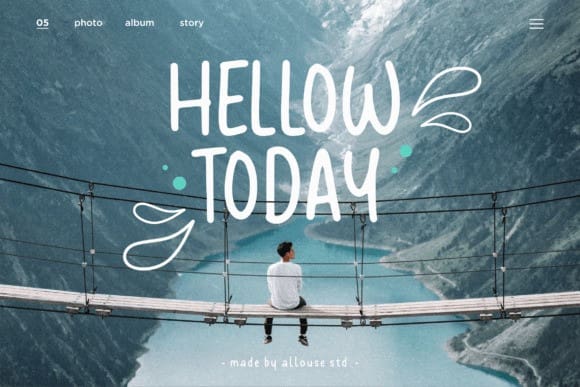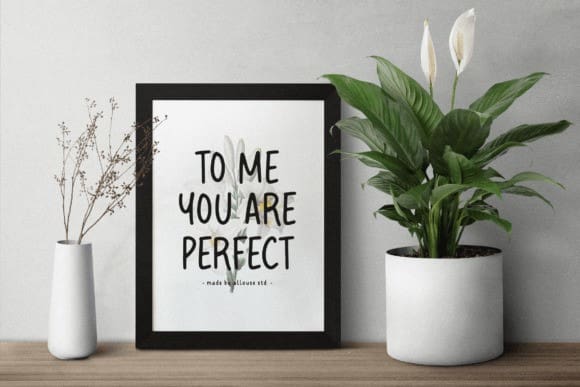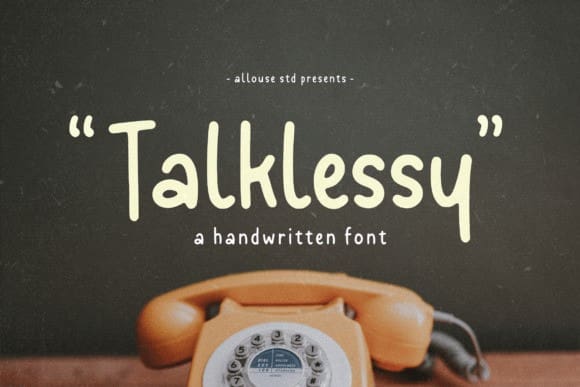
Talklessy Font
Talklessy Font is perfect for any titles, logo, product packaging, branding project, megazine, social media, wedding, or just used to express words above the background.
Talklessy also come with Multi-Lingual Support.